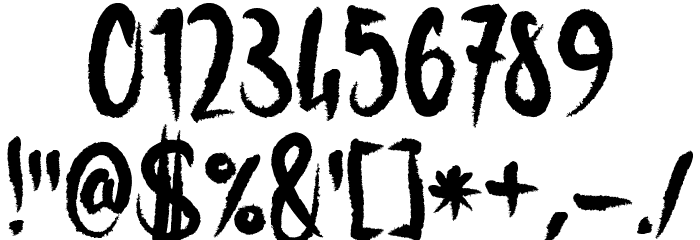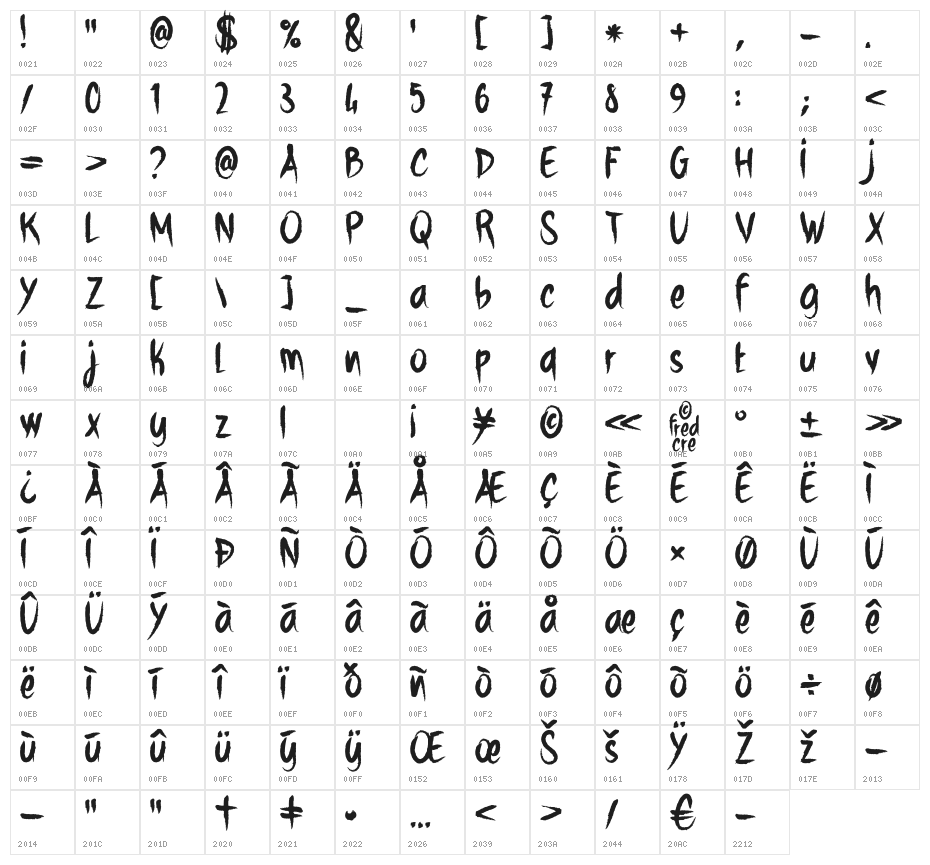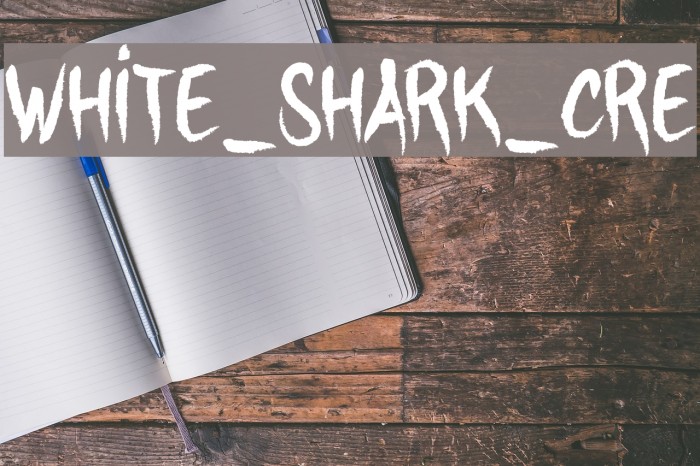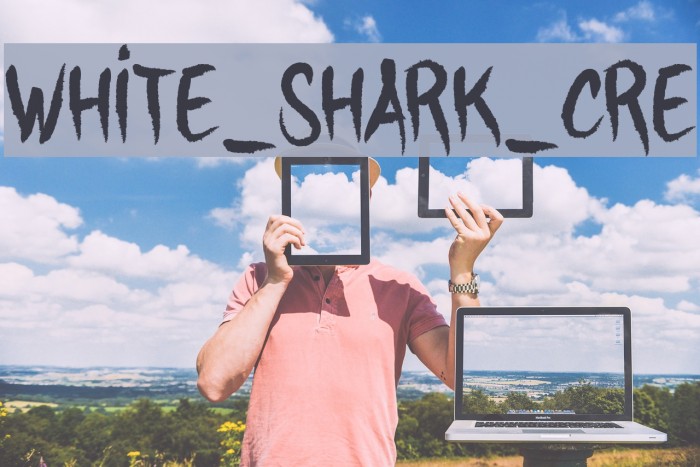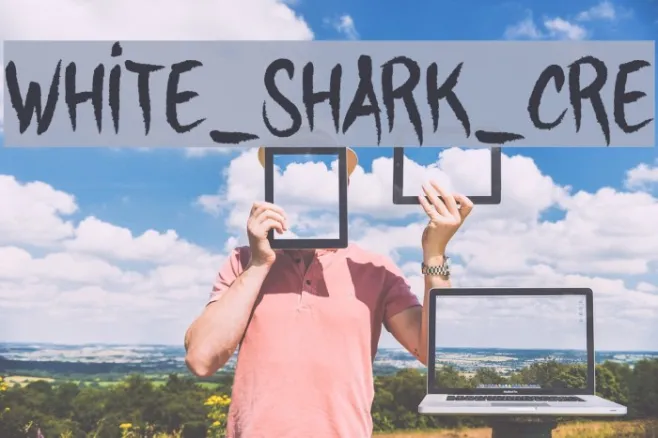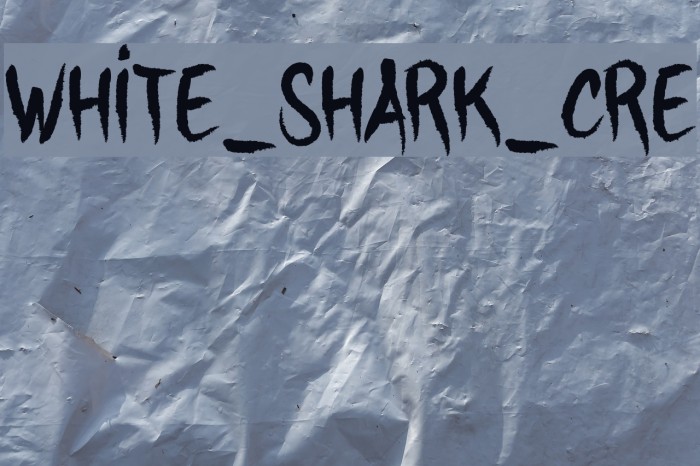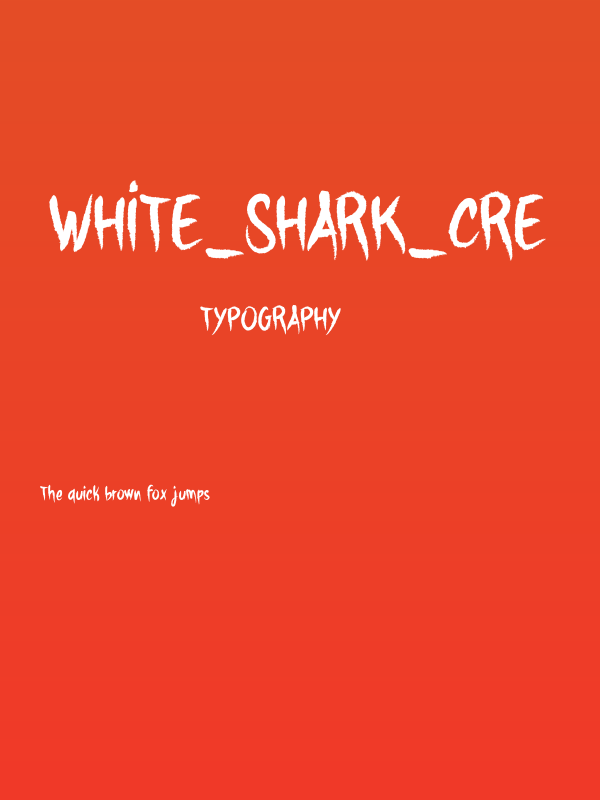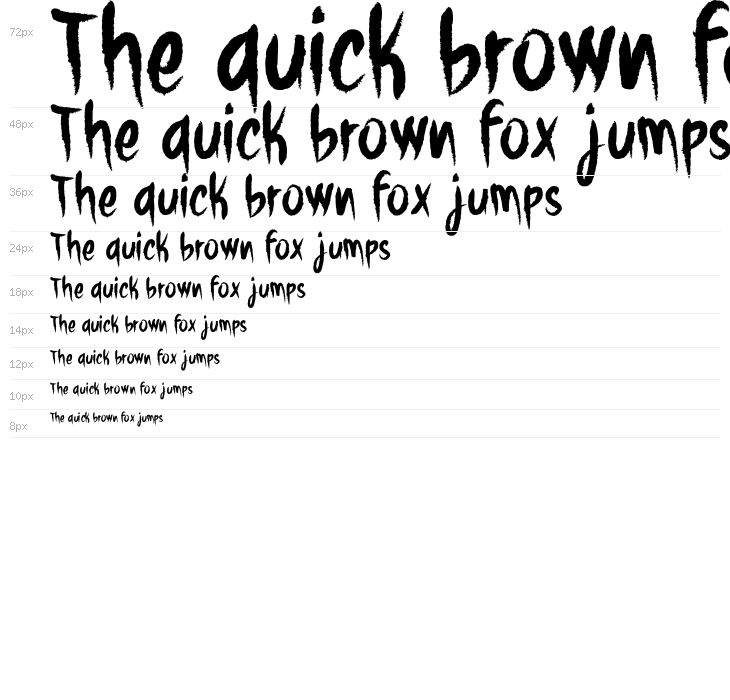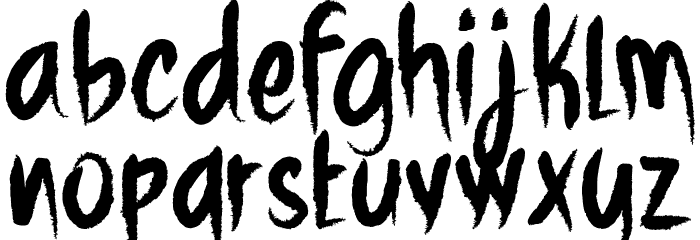
WHITE_SHARK_CRE Font
WHITE_SHARK_CRE Description
This font features a bold, brush-like style with a dynamic and energetic appearance. The strokes are uneven and jagged, giving it a hand-painted look that is both expressive and raw. The uppercase letters are tall and slightly narrow, while the lowercase letters maintain a consistent height with a playful, irregular baseline. Numbers and special characters follow the same energetic style, adding to the font's overall cohesive appearance. The texture of the strokes suggests a sense of movement and spontaneity, making it ideal for projects that require a bold and artistic touch.